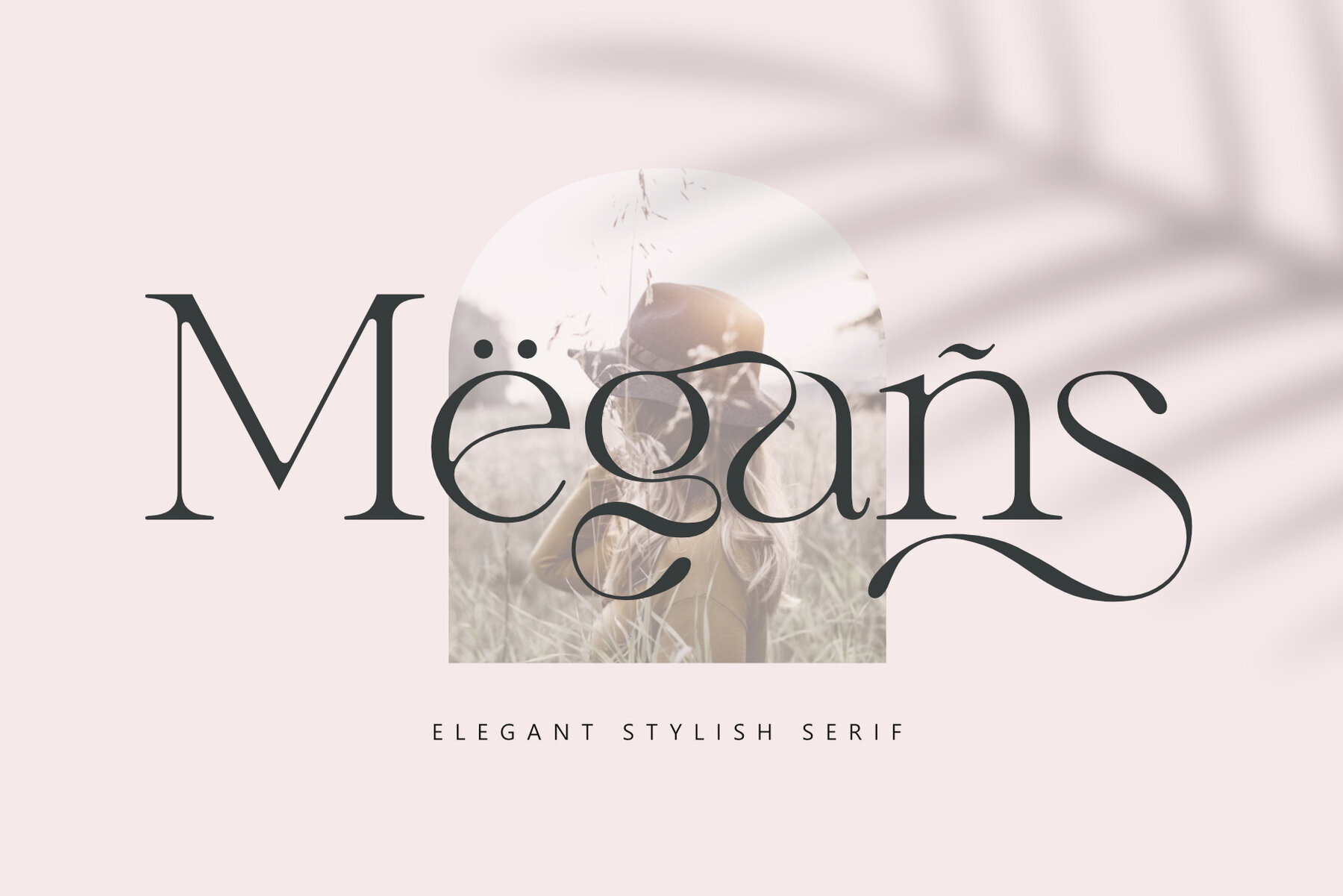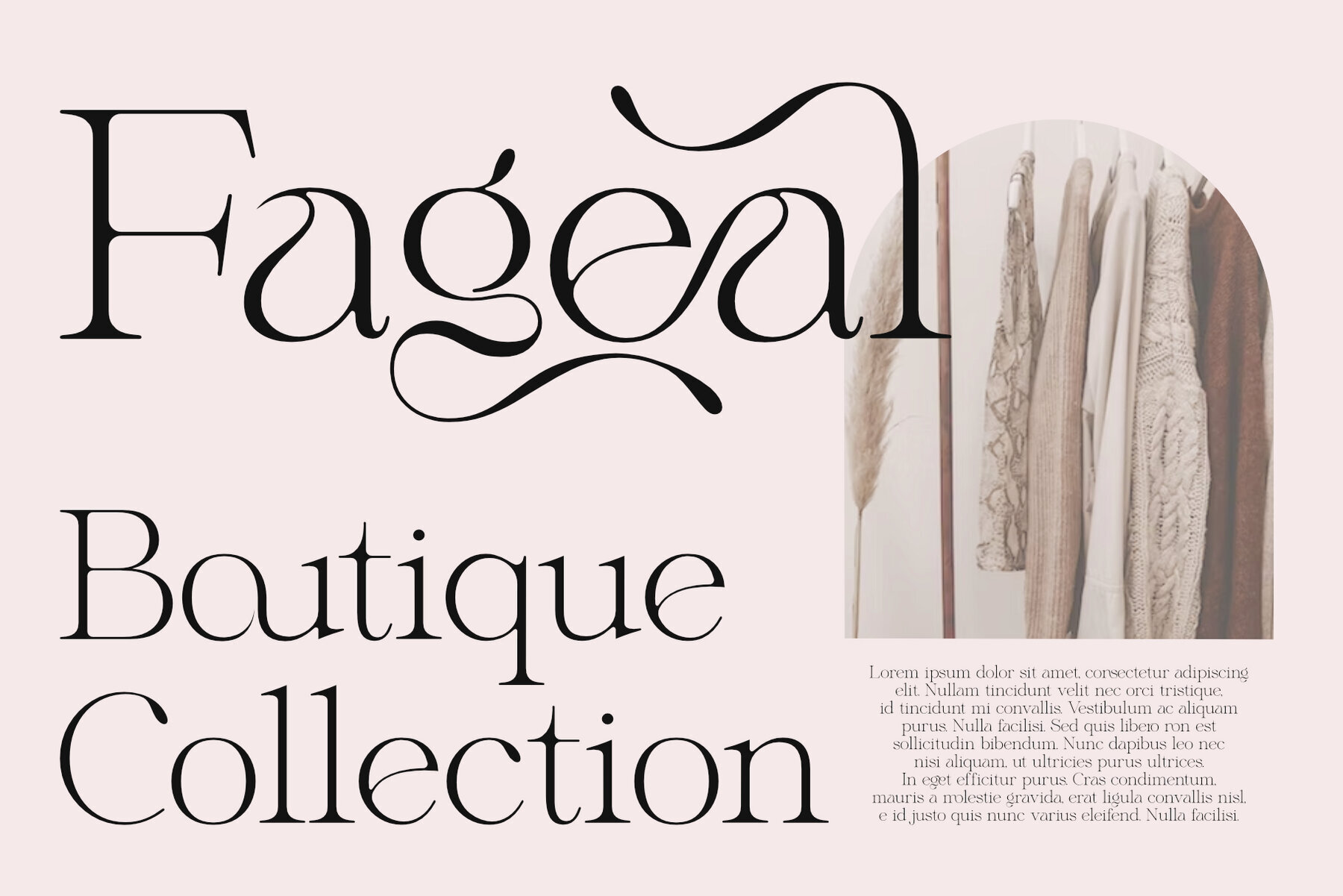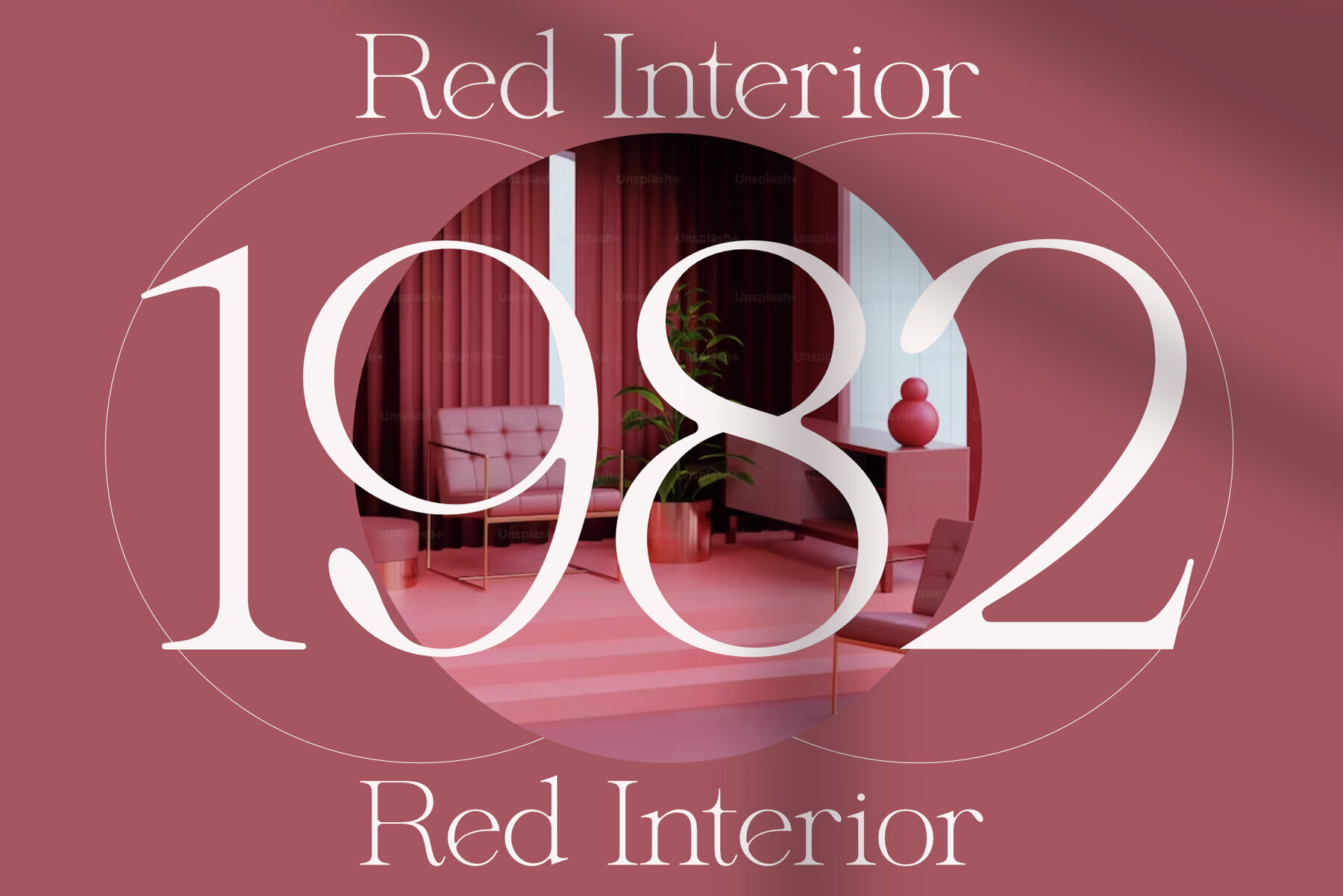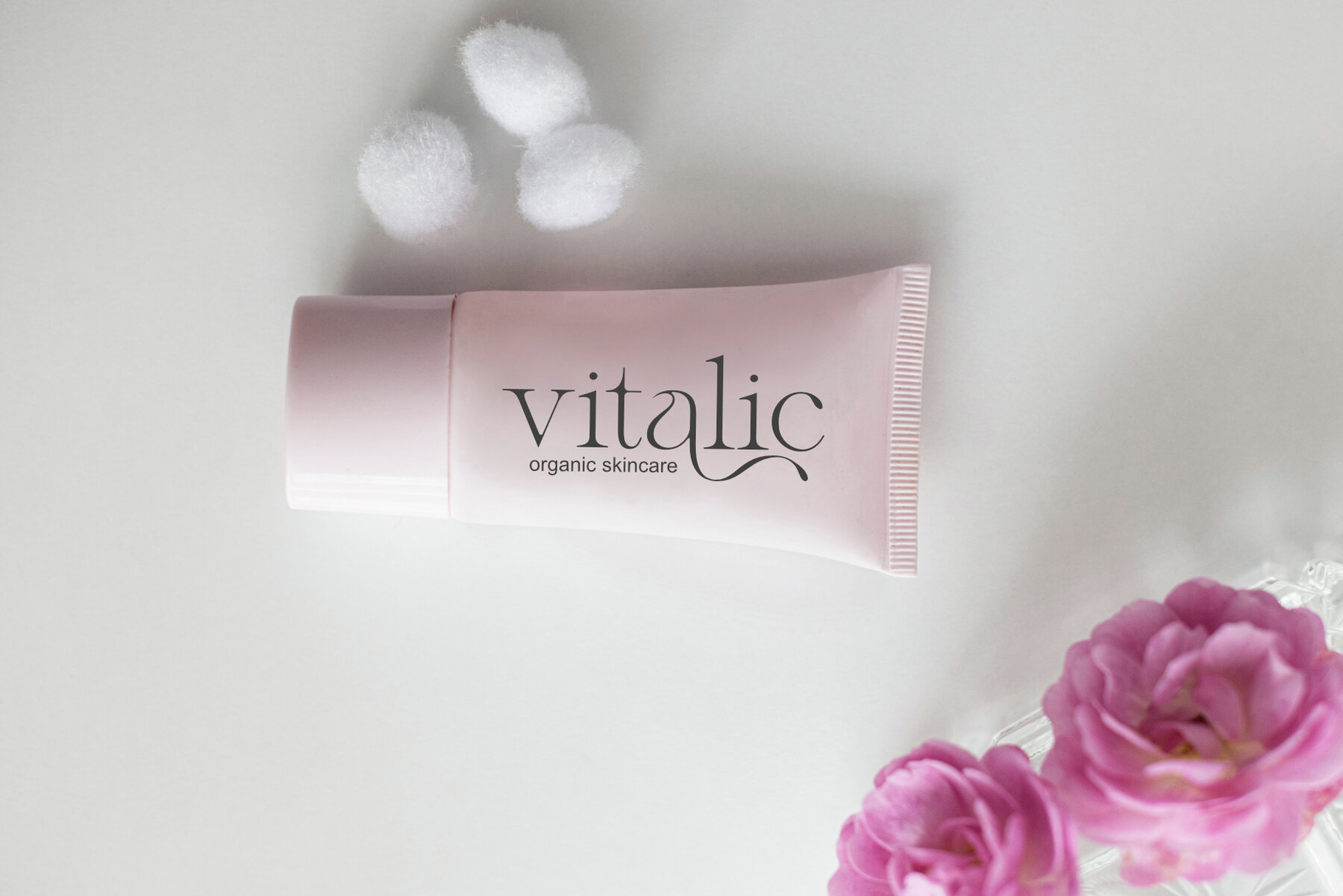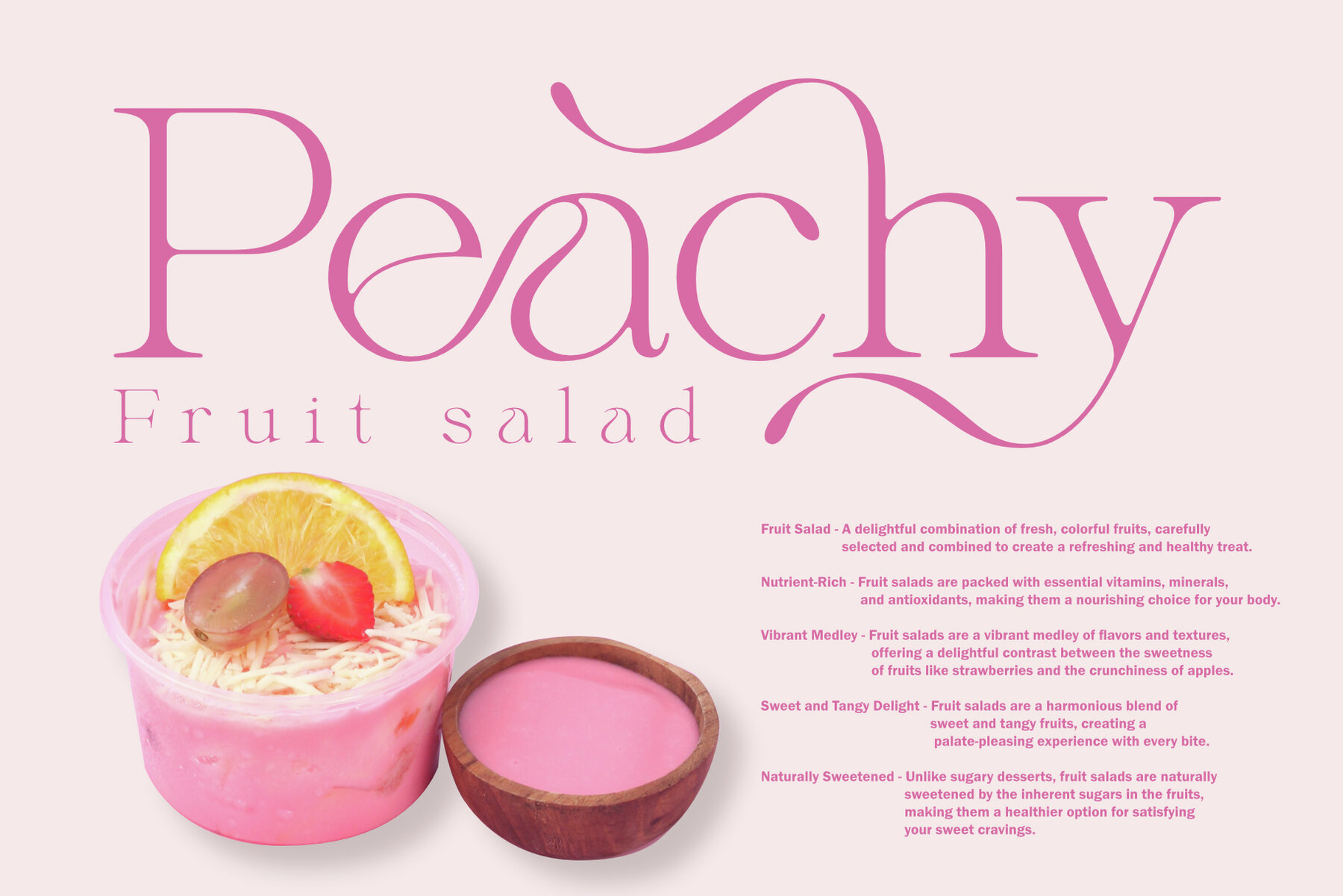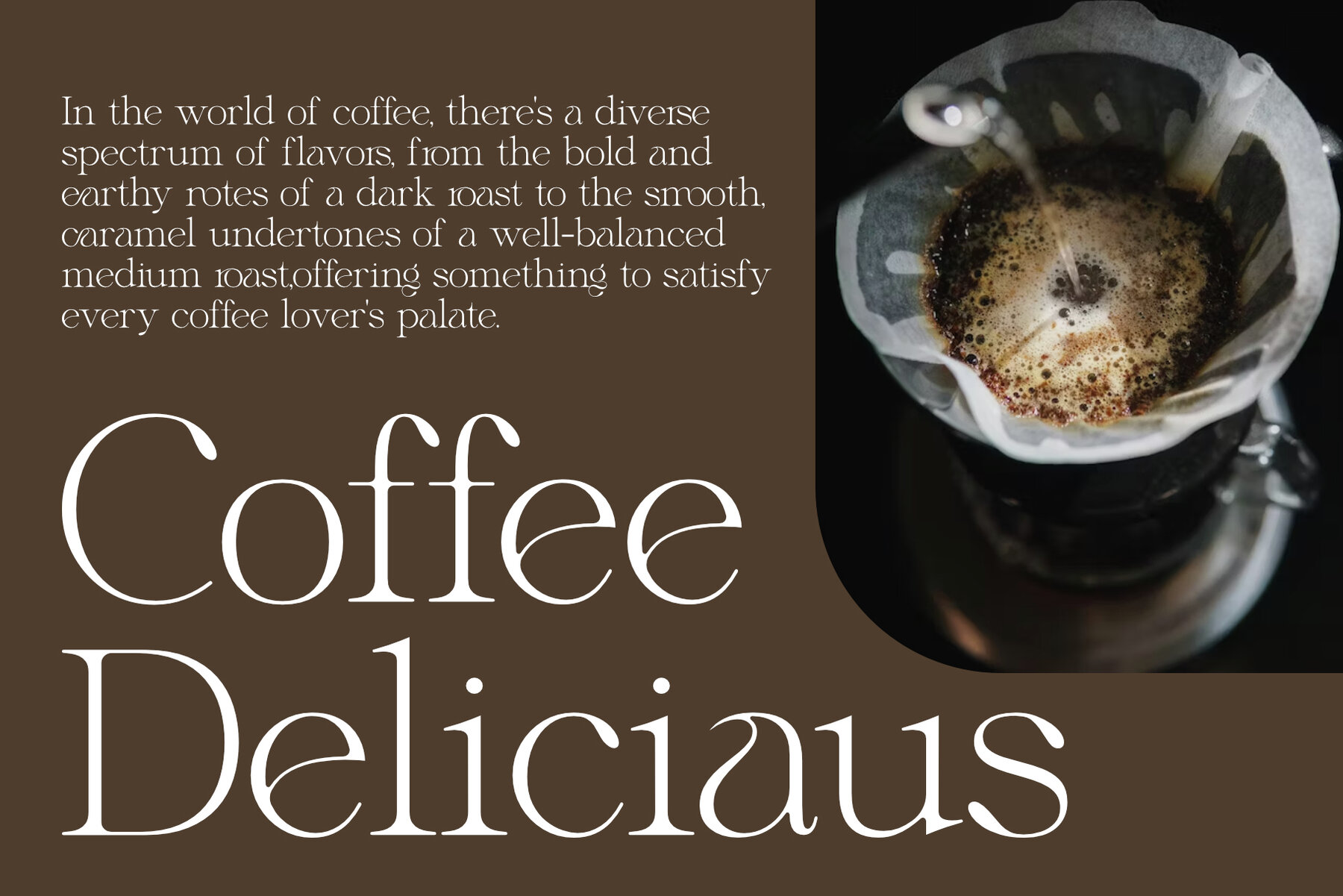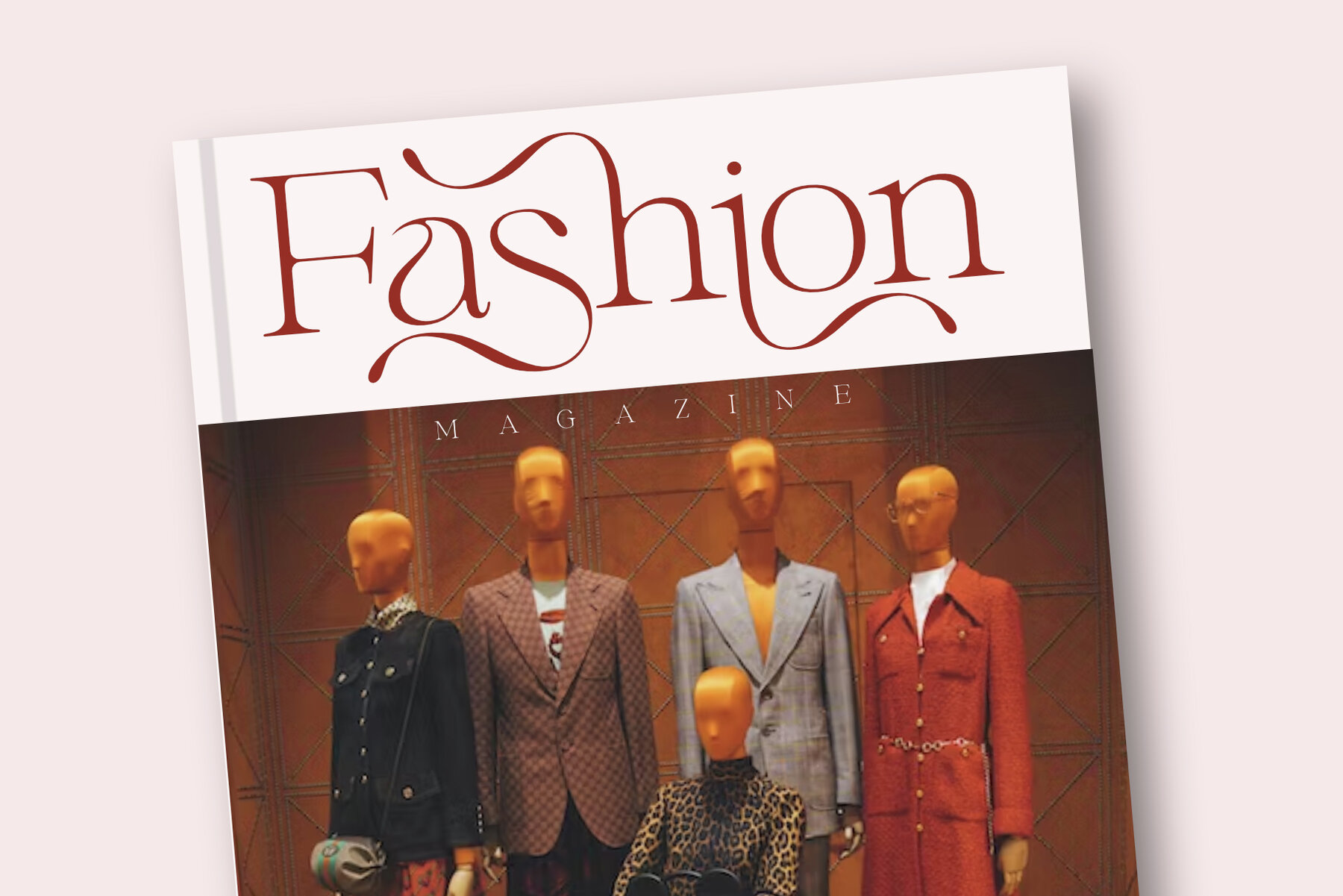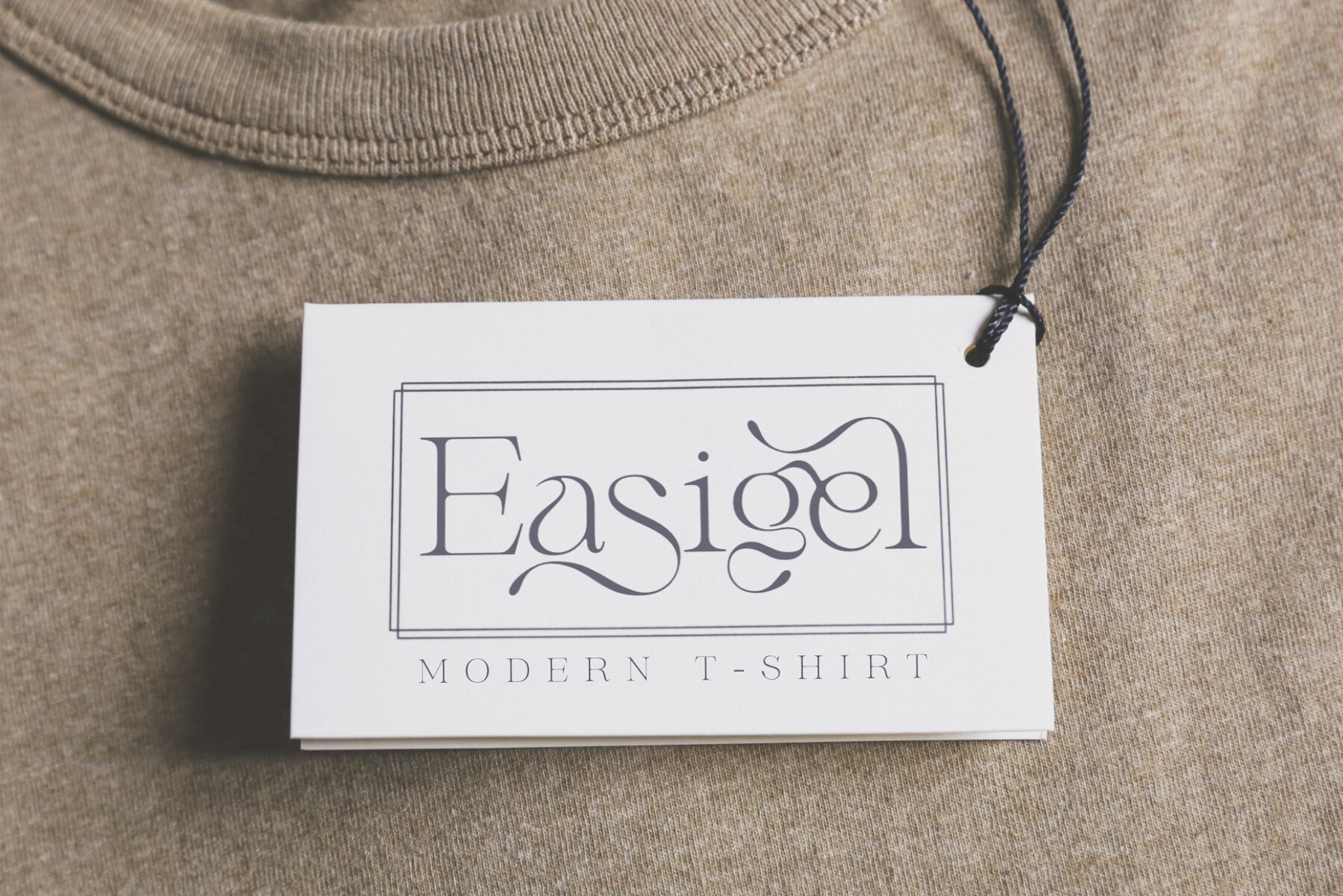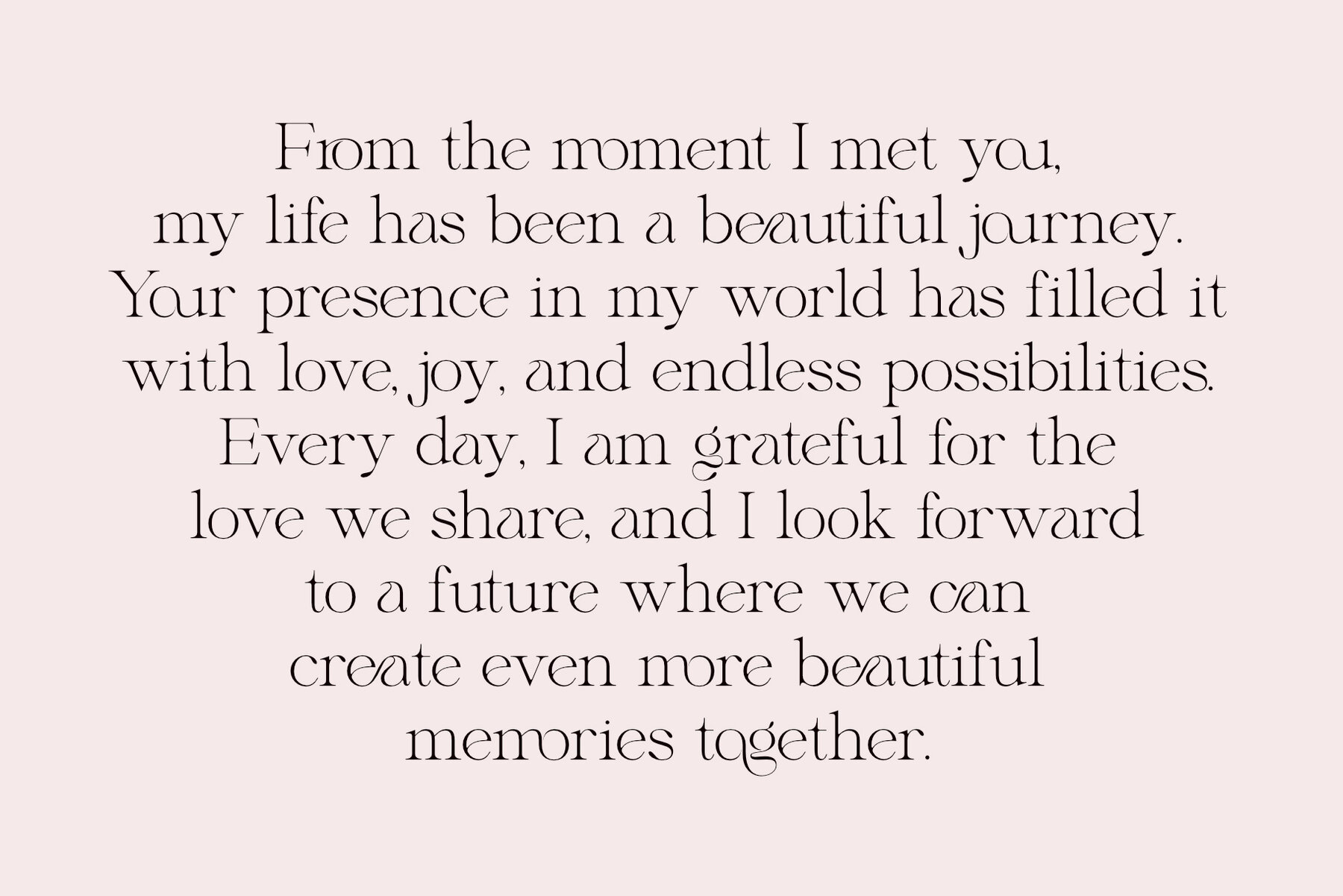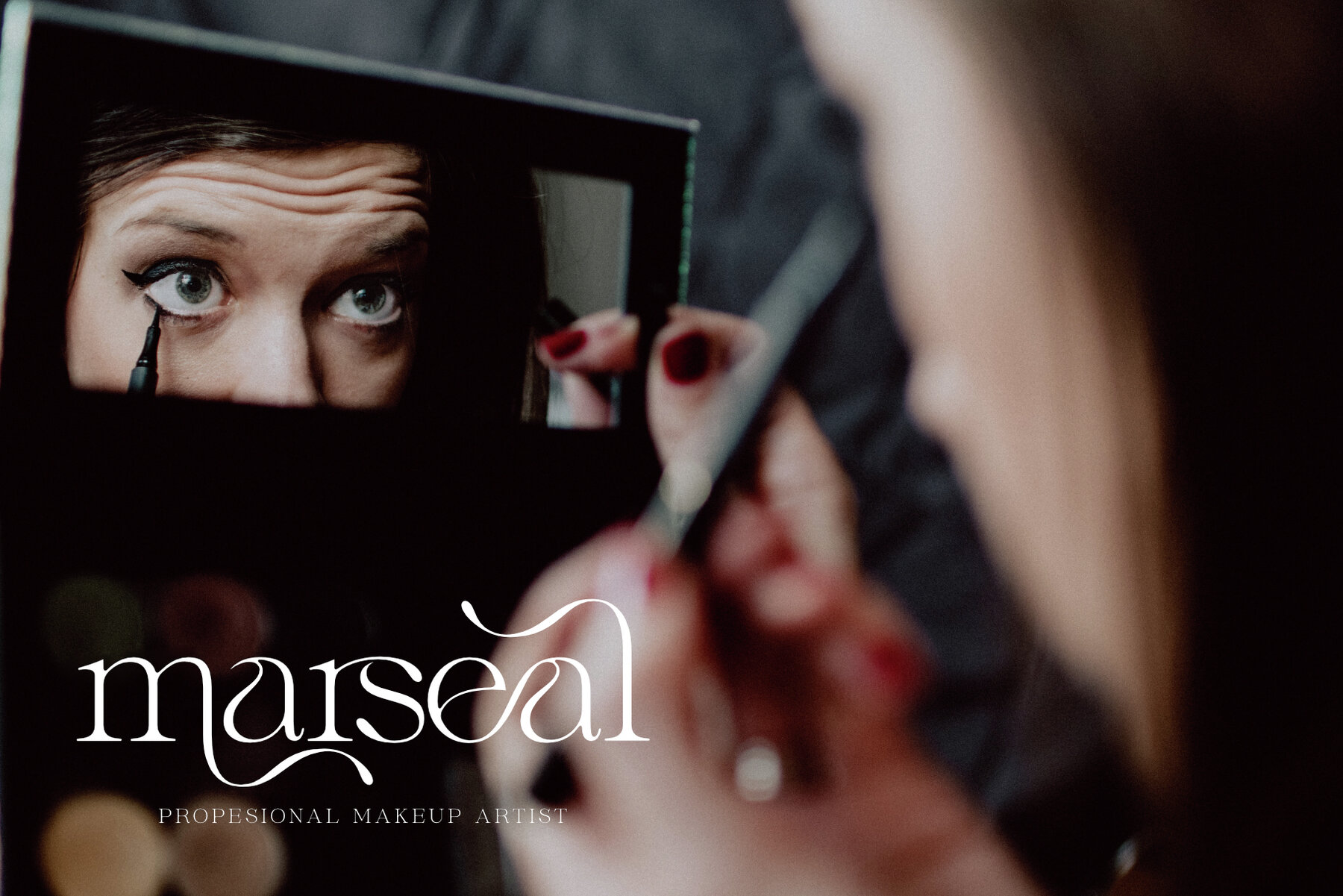
Megans Font
Megans Regular
Imagine a slender serif font that effortlessly combines classic elegance with modern sophistication. This font features delicate, fine lines that evoke a sense of refinement and grace. Its letters are meticulously crafted, and it comes with a range of ligatures and alternate characters that add a unique touch to your design projects. These ligatures and alternates seamlessly blend together, creating a harmonious and seamless flow of text. Whether you're working on a vintage-inspired poster or a contemporary wedding invitation, this font's ligatures and alternates will allow you to infuse a touch of artistic flair into your designs, making it the perfect choice for those seeking a balance of tradition and innovation. Included :